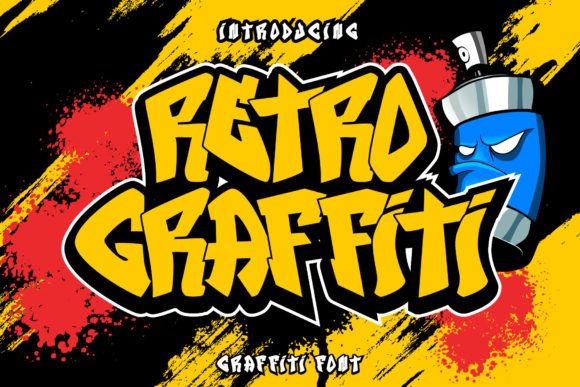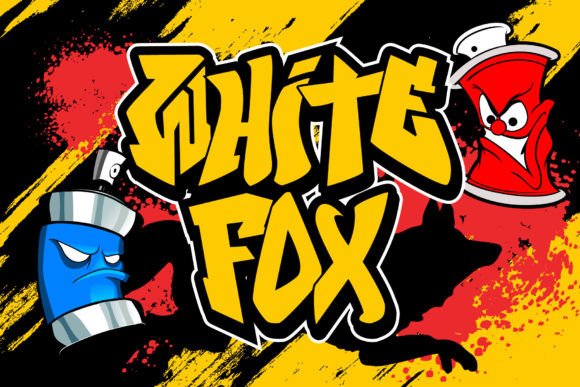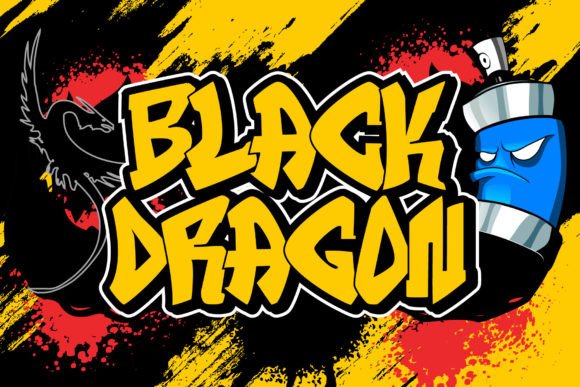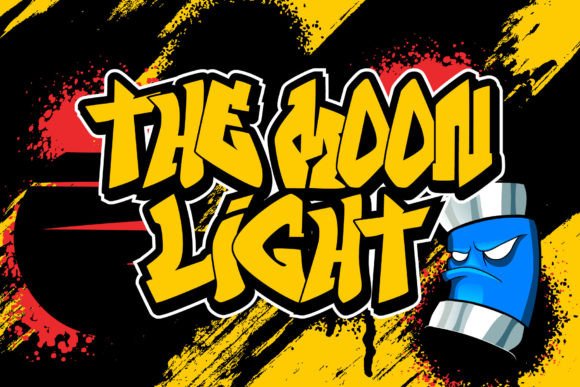
Retro Graffiti Font: Street Edge – A Bold Display Font
About the Retro Graffiti Font
Add a touch of class to your work with the Retro Graffiti Font, a truly exceptional typeface. Retro Graffiti is a bold and chunky lettered display font that playfully evokes the iconic look and style of graffiti. Add this font to your urban and casual creations and you will love the outcome.
Retro Graffiti excels in headline applications, short impactful statements, posters, and branding for streetwear or music-related projects. Its bold, chunky nature makes it unsuitable for body text or lengthy paragraphs; readability suffers at smaller sizes. Avoid using it in user interfaces (UI) where legibility is paramount.
The font’s core personality is rebellious and energetic, with a distinctly playful, yet urban feel. This makes it ideal for brands projecting a youthful, street-smart, or edgy image.
Pairing Retro Graffiti with a clean sans-serif like Helvetica Neue for supporting text provides a strong contrast and visual balance. For a more vintage feel, consider pairing it with a classic serif font such as Garamond.
Retro Graffiti Font Usage Examples
Retro Graffiti Font Example